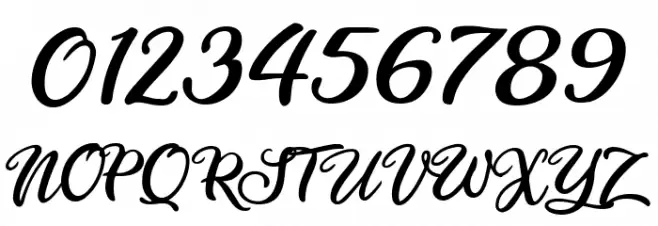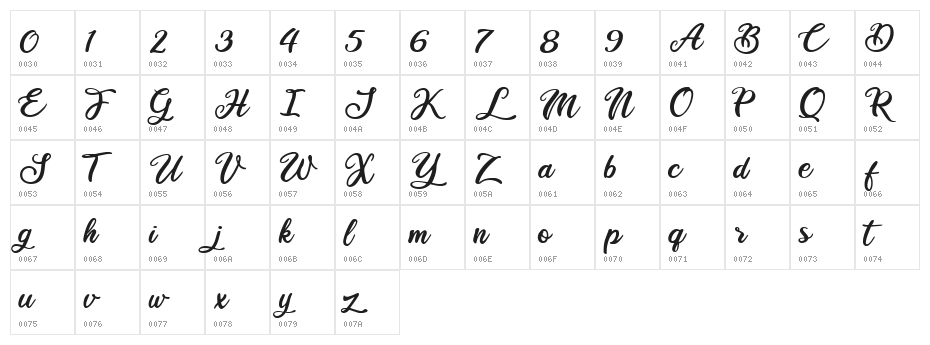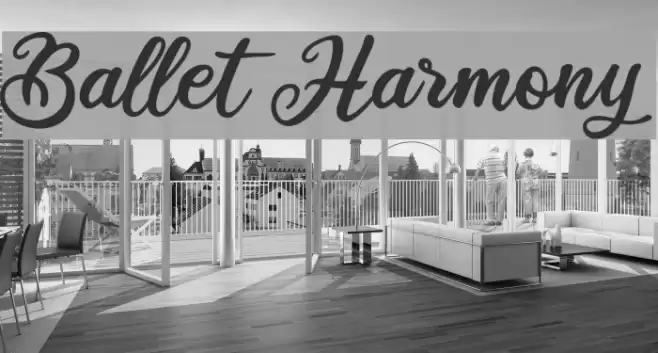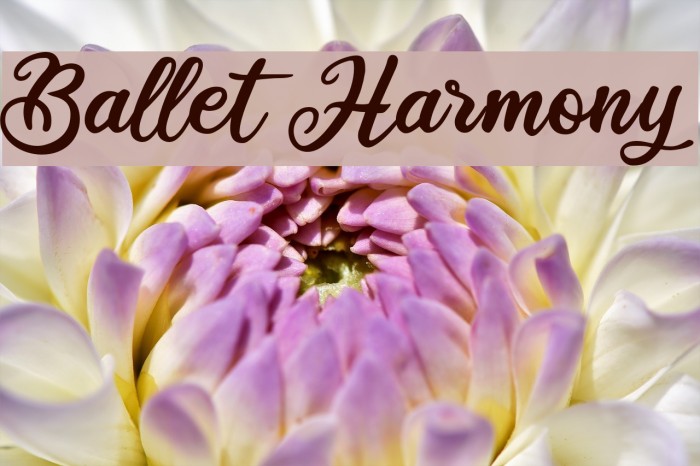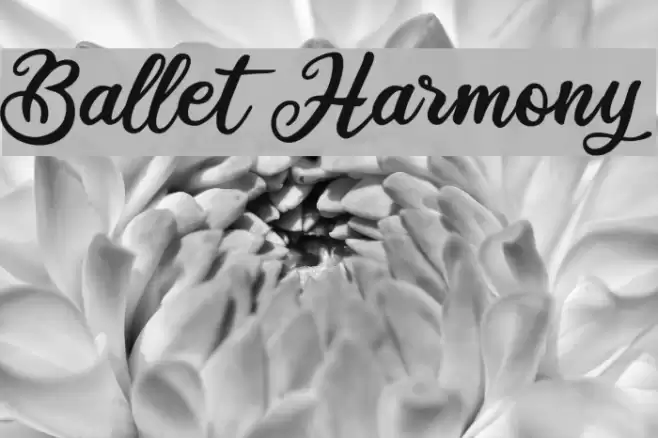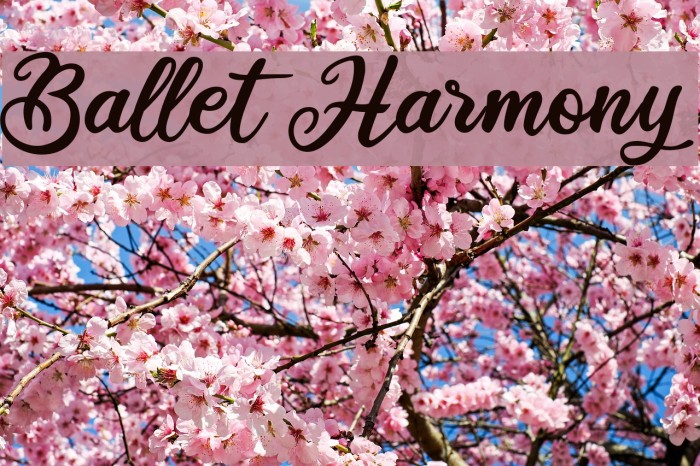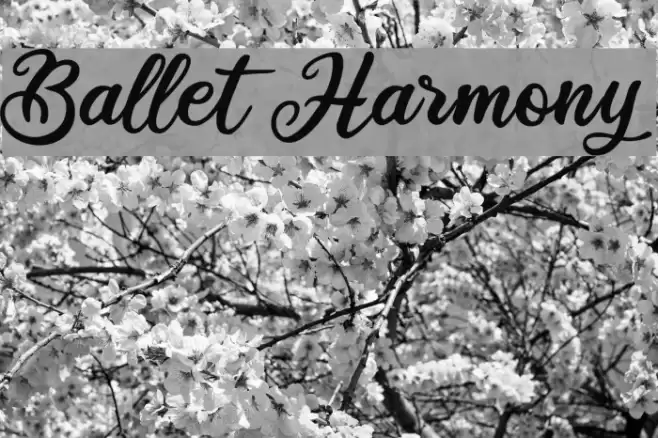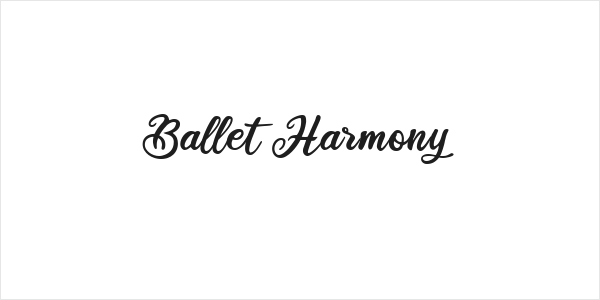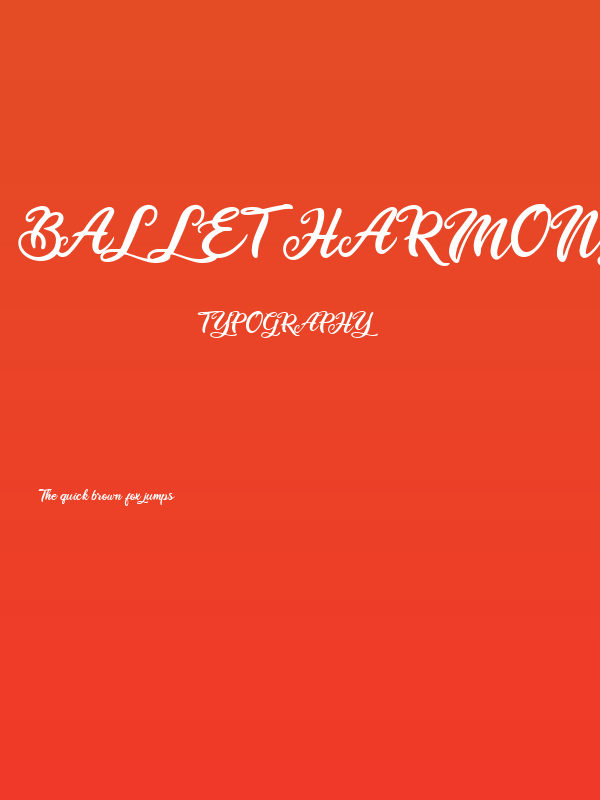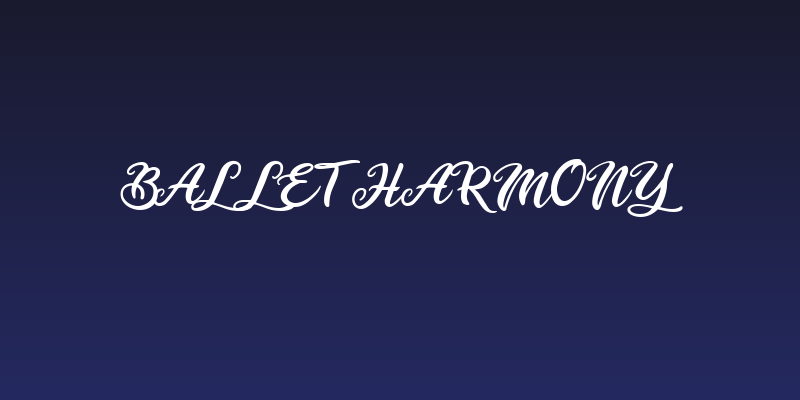
Ballet Harmony Font
Ballet Harmony Description
This elegant script font features flowing, interconnected letters that exude a sense of grace and sophistication. The uppercase letters are ornate, with sweeping curves and flourishes that add a touch of drama. The lowercase letters maintain a consistent style, with smooth transitions and a slightly slanted orientation, enhancing the font's fluidity. The numerals are designed to match the overall aesthetic, with rounded edges and a balanced appearance. This font is perfect for projects that require a touch of elegance and refinement, such as wedding invitations, formal event programs, or luxury branding.
Overall StyleElegant
Use CaseLogos, Invitations, Decorative Text
Proposed ProjectsIdeal for wedding invitations, formal event programs, luxury branding, and elegant signage.